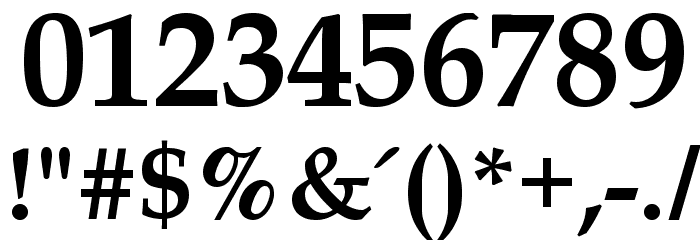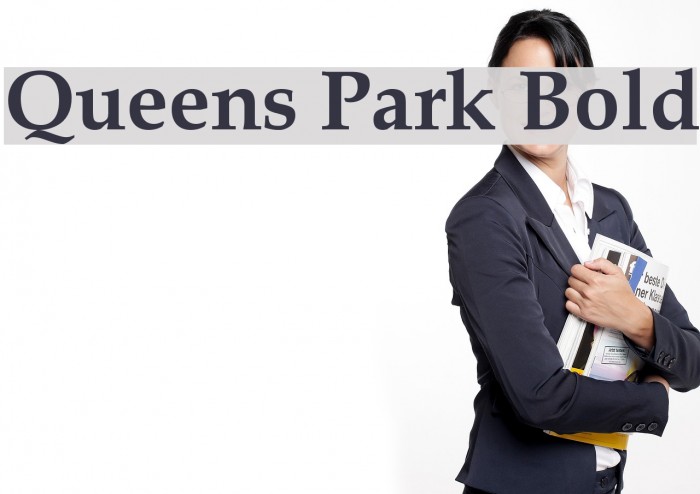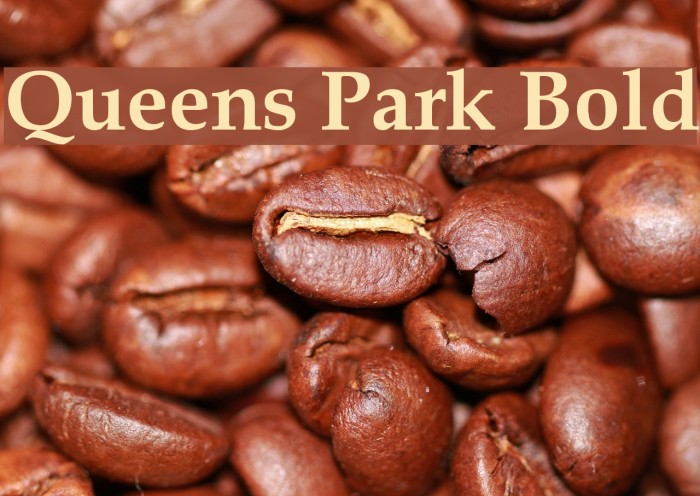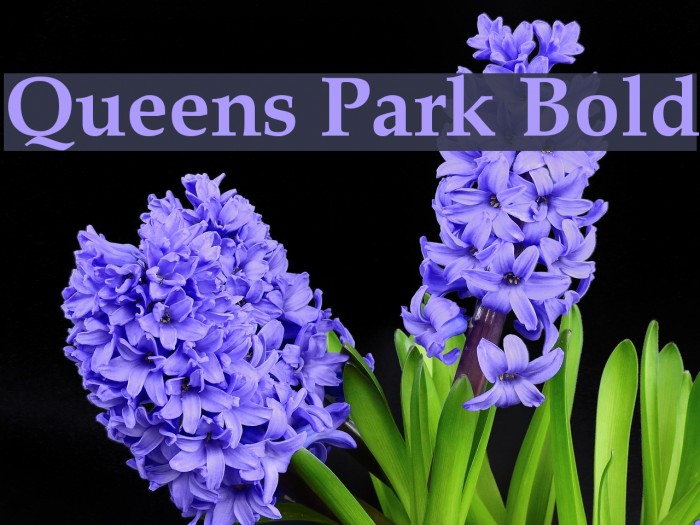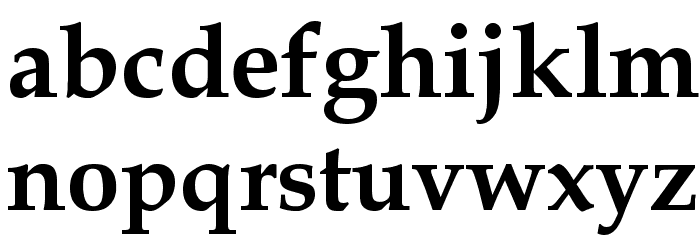
Queens Park Bold Font
This font exhibits a classic serif style with strong, bold strokes that convey a sense of authority and tradition. The serifs are pronounced, adding a touch of elegance and readability, making it suitable for both print and digital media. The uppercase letters are well-proportioned, and the lowercase letters maintain a consistent x-height, ensuring clarity in text. The numerals are distinct and easy to read, while the special characters are crafted to match the overall aesthetic, providing versatility for various design needs.
A bold, classic serif font with strong strokes and pronounced serifs.
• Proposed Projects: Ideal for editorial design, book covers, formal invitations, and branding projects that require a touch of elegance and tradition.
• Category: Serif
• Bold: Yes
• Italic: No
• Weight: Bold
• Width: Normal
• Character Spacing: Normal
• Contrast: High
• Overall Style: Classic
• Use Case: Headlines, Body text, Logos